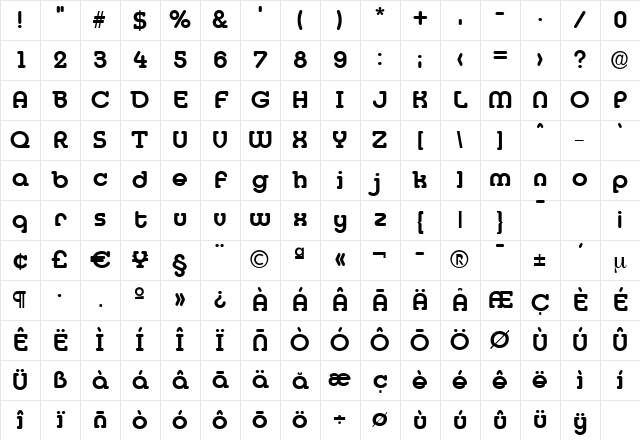
DesireeBeckerMedium Regular
DesireeBeckerMedium Family
Design Context for DesireeBeckerMedium
DesireeBeckerMedium is a composed and adaptable typeface that performs quietly and consistently across a wide range of design contexts.